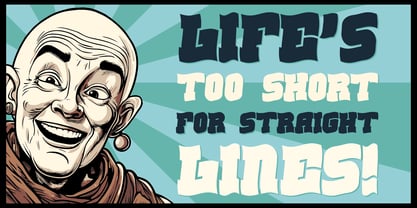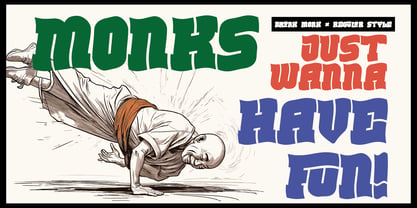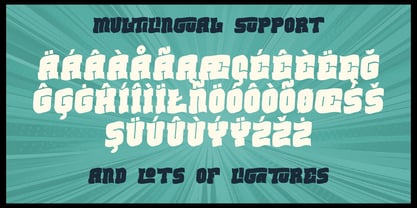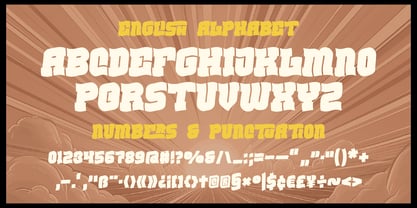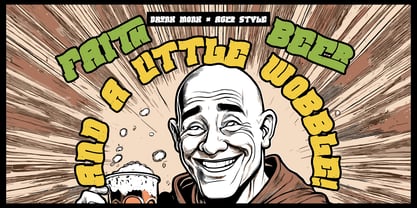
Drunk Monk
por Vozzy
A família de fontes Drunk Monk foi desenhada por Oleg Voznyy e publicada pela Vozzy. Drunk Monk contém 2 estilos e opções de pacote familiar. Saiba mais sobre esta família
Introducing the original display font "Drunk Monk" – a striking, handcrafted typeface made to stand out. This font includes extended characters, punctuation marks, and full multilingual support to suit a wide range of creative projects. It also features a rich set of stylistic ligatures to add extra flair to your designs. Whether you're working on posters, flyers, branding, or T-shirt graphics, this font brings personality and clarity to every layout. "Drunk Monk" was designed with attention to detail and a love for expressive typography. Try it out and give your work a unique, custom-made feel.
Designers: Oleg Voznyy
Fundição: Vozzy